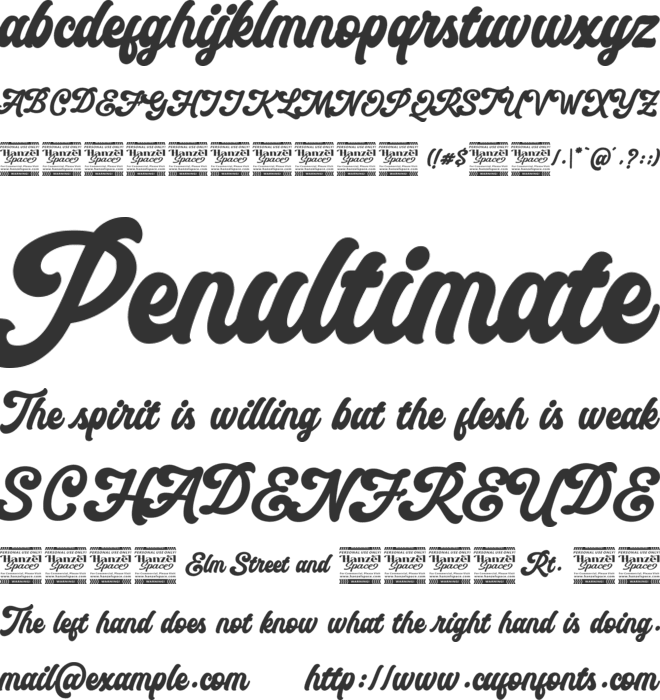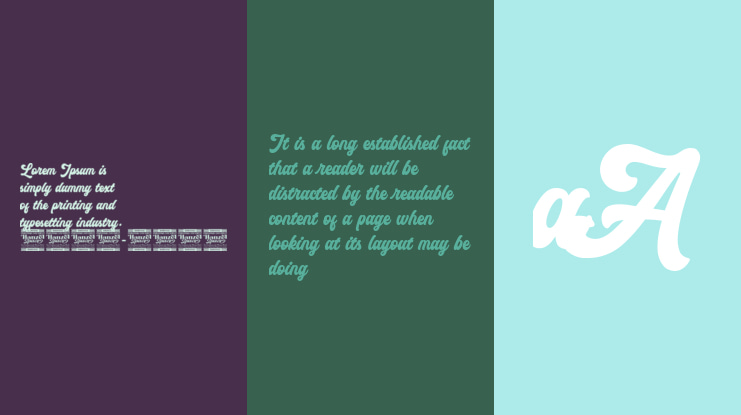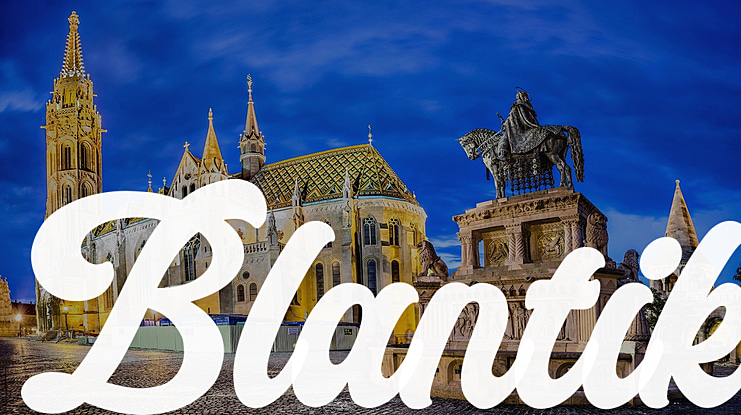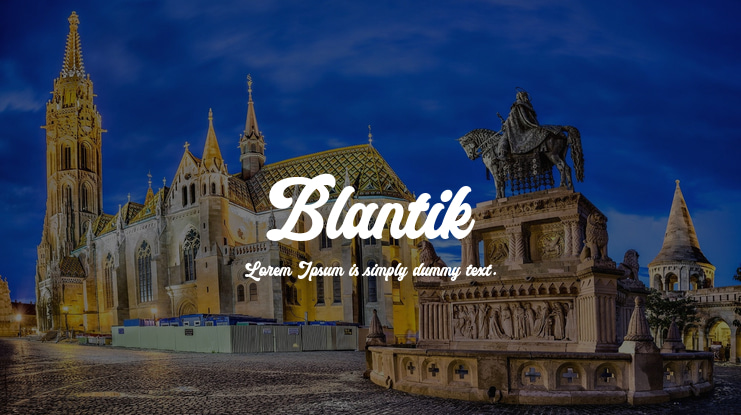
Blantik Script Font
Introducing Blantik Script Font. This font is made with a unique touch of curves and has a vintage feel complemented
by an interesting swash. This font is perfect for all your design needs. These include logos, posters, movie titles,
branding, book covers, flyers, and others.
The script includes a set of uppercase characters, numerals, symbols, two lowercase letter sets
Features:
- Full Set of standard alphabet and punctuation
- Extra set of beginning swashed lowercase
- Extra set of ending swashed lowercase
- Handwritten ligatures
- Multilingual Characters (ÁÂÄÀÅÃÆÇÐÉÊËÈÍÎÏÌÑÓÔÖÒØÕÚÛÜÙẂŴẄẀÝŶŸỲ áâäàåãæçðéêëèíîïìñóôöòøõœúûüùẃŵẅẁýŷÿỳ€£¥)